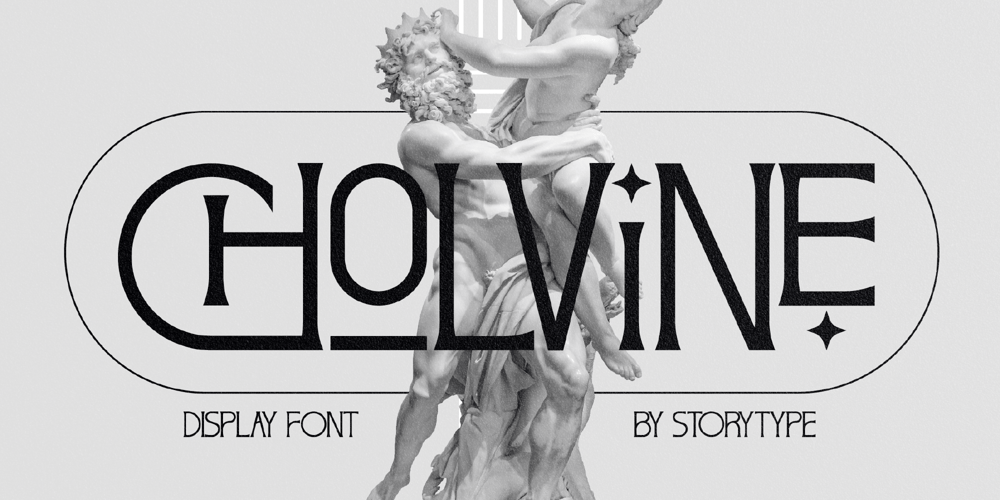
Cholvine Font Family was designed by Heru Utama Putra and published by Letterena Studios. Cholvine contains 2 styles and family package options. Cholvine is a clean, stylish and adaptable sans serif font. It is PUA encoded which means you can access all of the amazing glyphs and ligatures with ease! Add it to each of your posters, designs and pretty much anything that requires a cool touch.